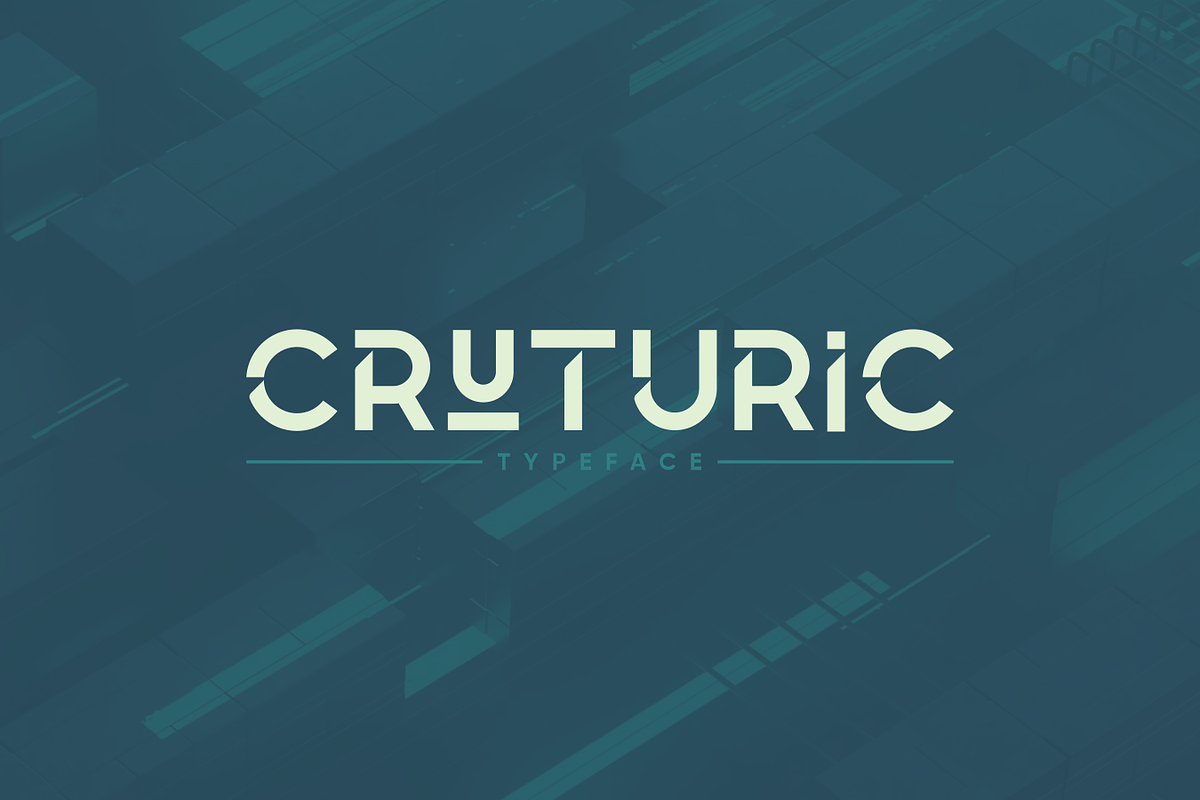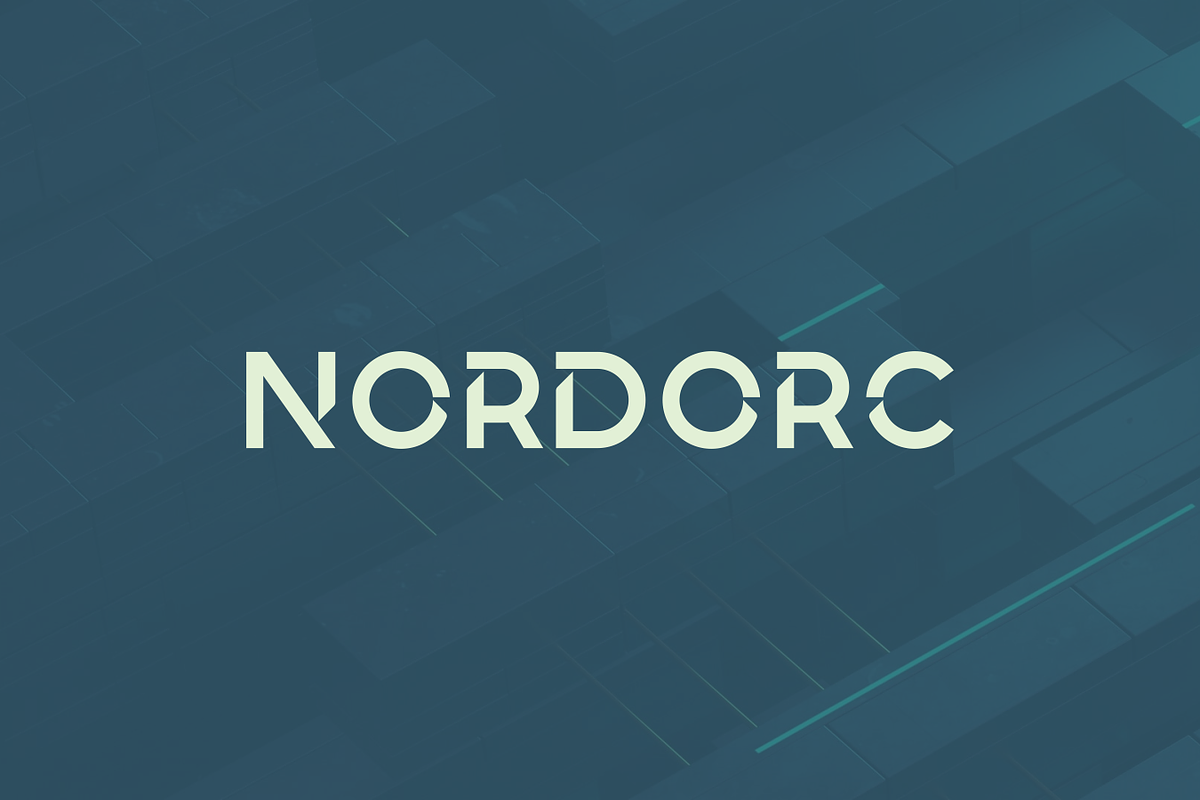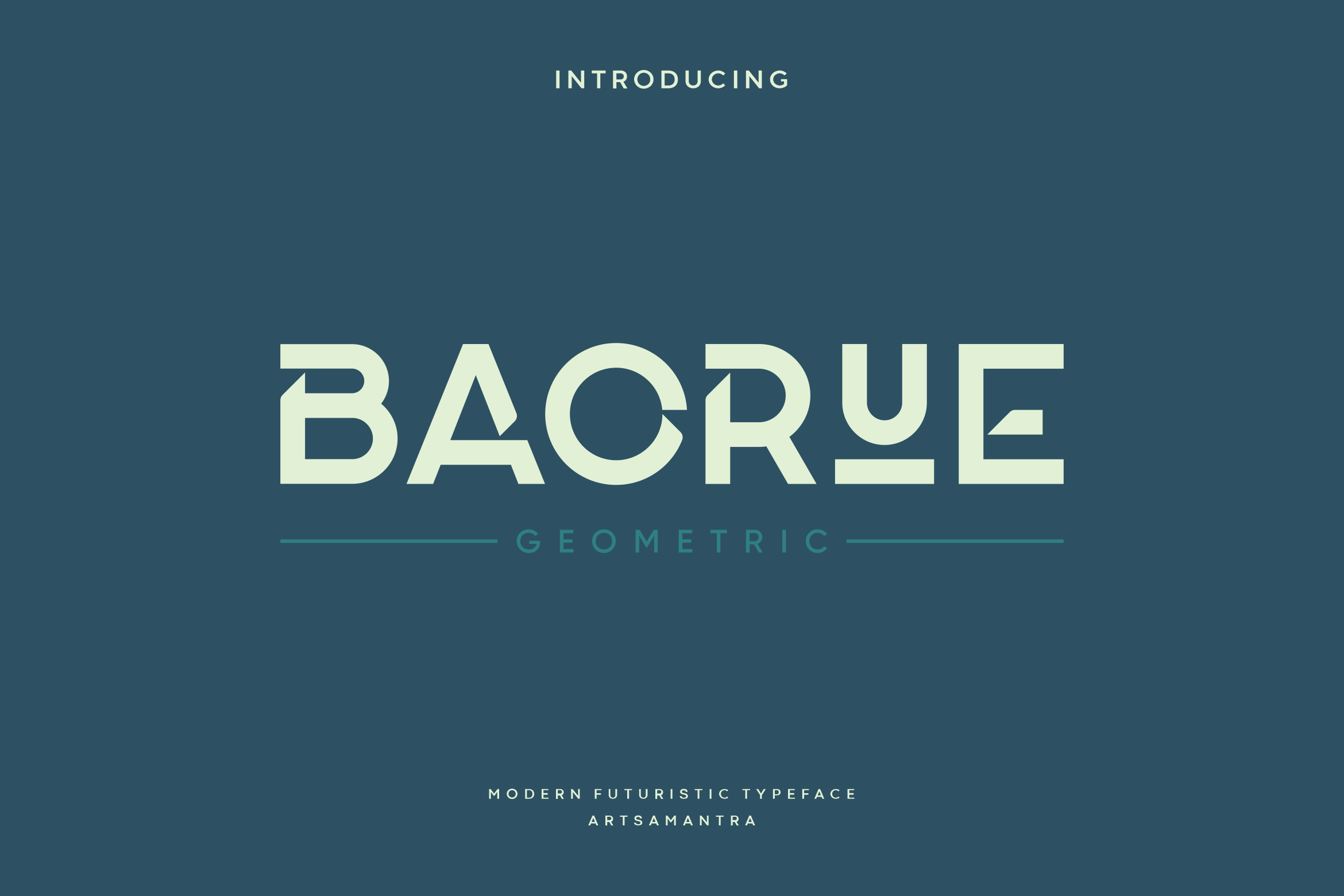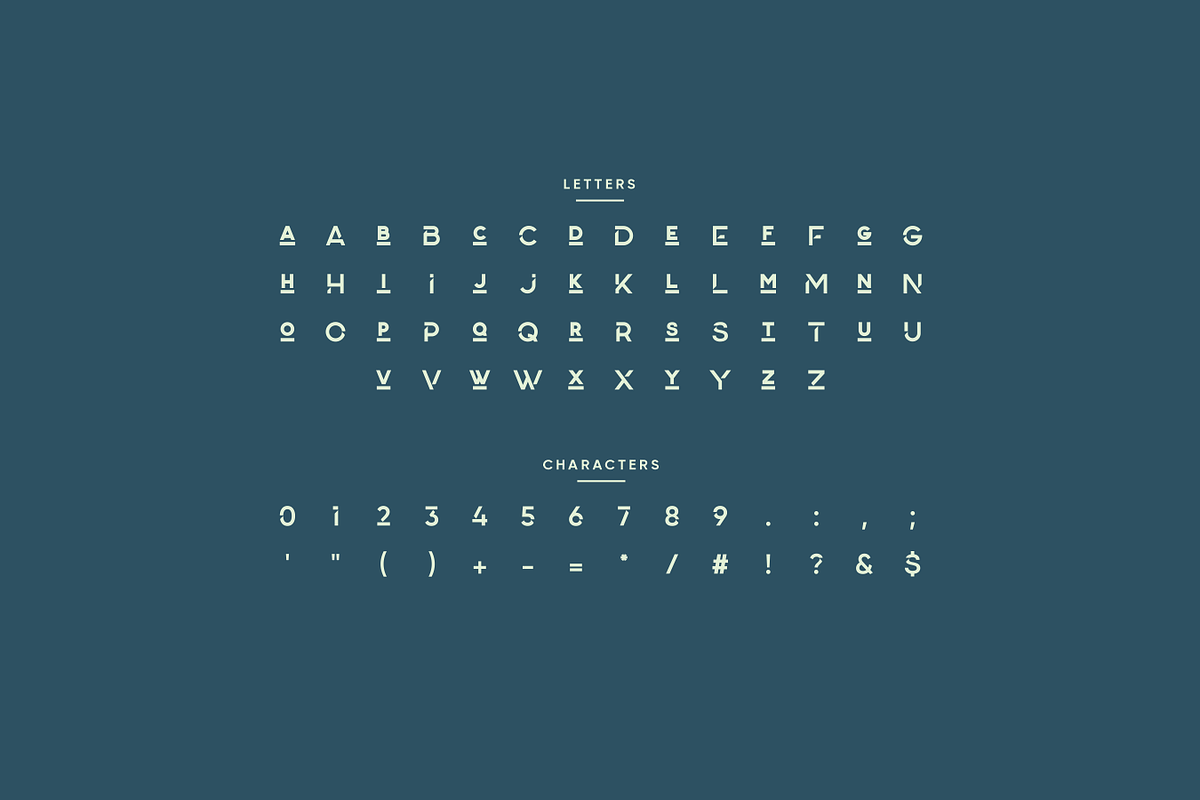
Baorue - Futuristic Typeface
Baorue is stylish font, clean, clear, firm and still looks luxurious, comes in all-caps style. This font is suitable for use in business, branding, logo, brochures, posters etc. Geometric sans in the tradition, it’s modern streak which is the result of harmonization of width and height especially in the uppercase letters to support the best legibility possible. Baorue aim is to be a universal weapon not only because it works great in headlines, sort and long copies, but also because of its subtle neutrality.